sona studio website
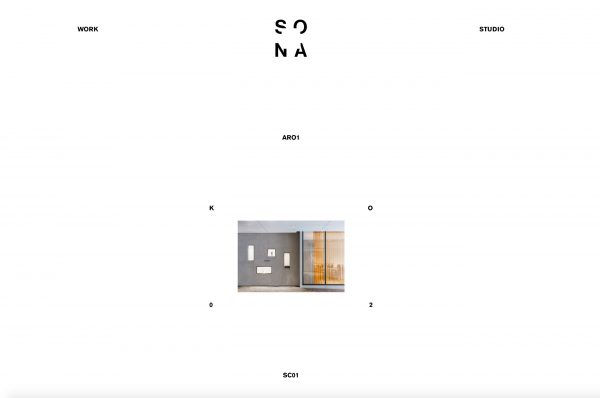
sona studio website
PRINCIPAL TYPE:
Akzidenz Grotesk, Alte Haas Grotesk.
CONCEPT:
The aim of the brief was to apply kinetic typography and a visual identity to create a dynamic architecture website. The visual identity drives the composition and layout of the sona studio website adding excitement and cohesion to each page. The interface intends to utilize the dynamic characteristics of the sona logo resulting in smooth transitions for the architectural project to be experienced in an inspirational way.